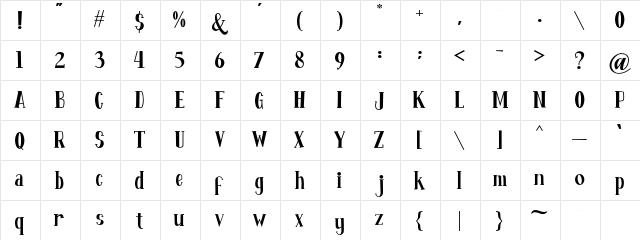
Fontastique Regular
| Designer | figuree 2018 |
Design Context for Fontastique Typeface
Fontastique is a composed and adaptable typeface that performs quietly and consistently across a wide range of design contexts.